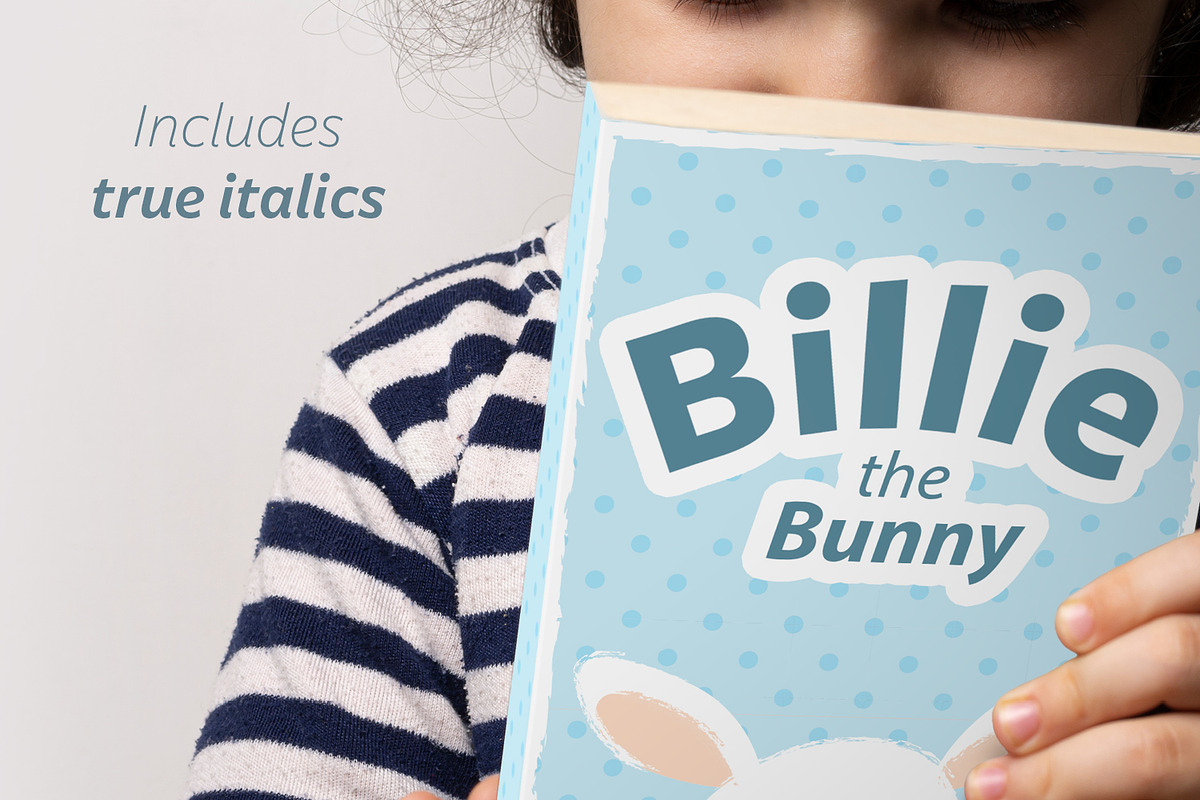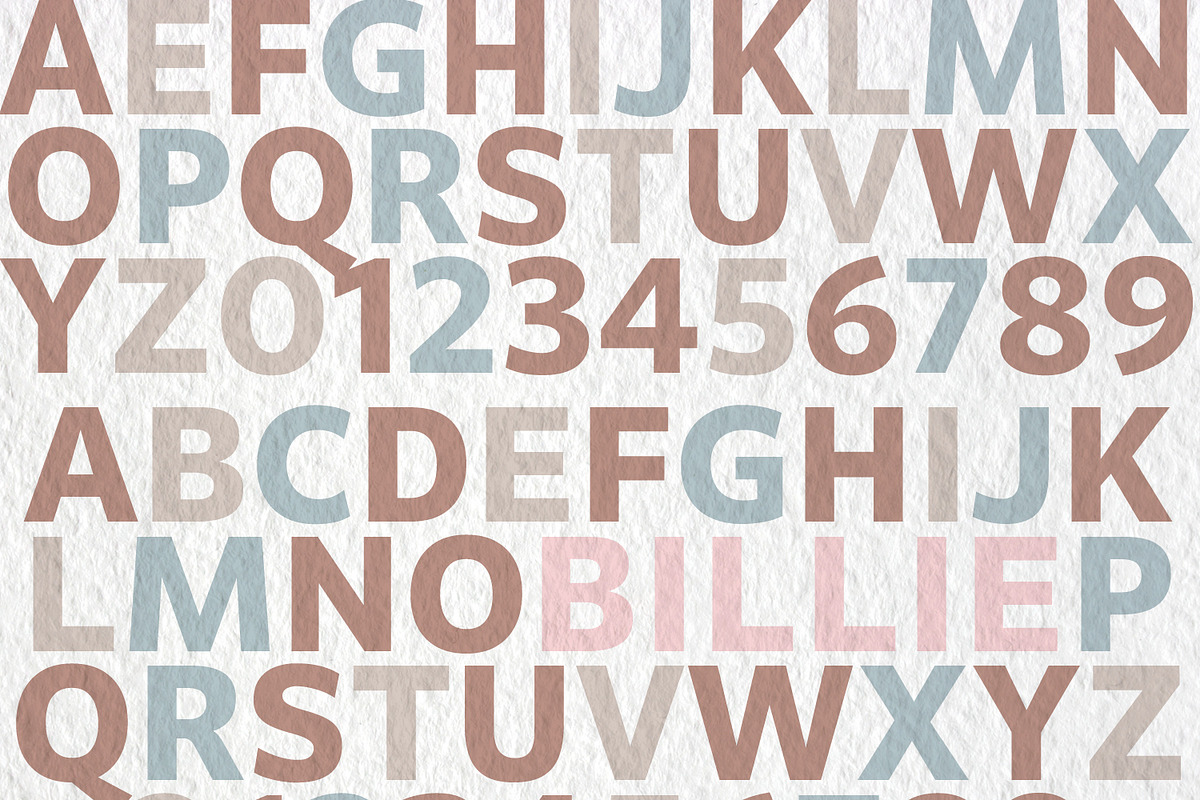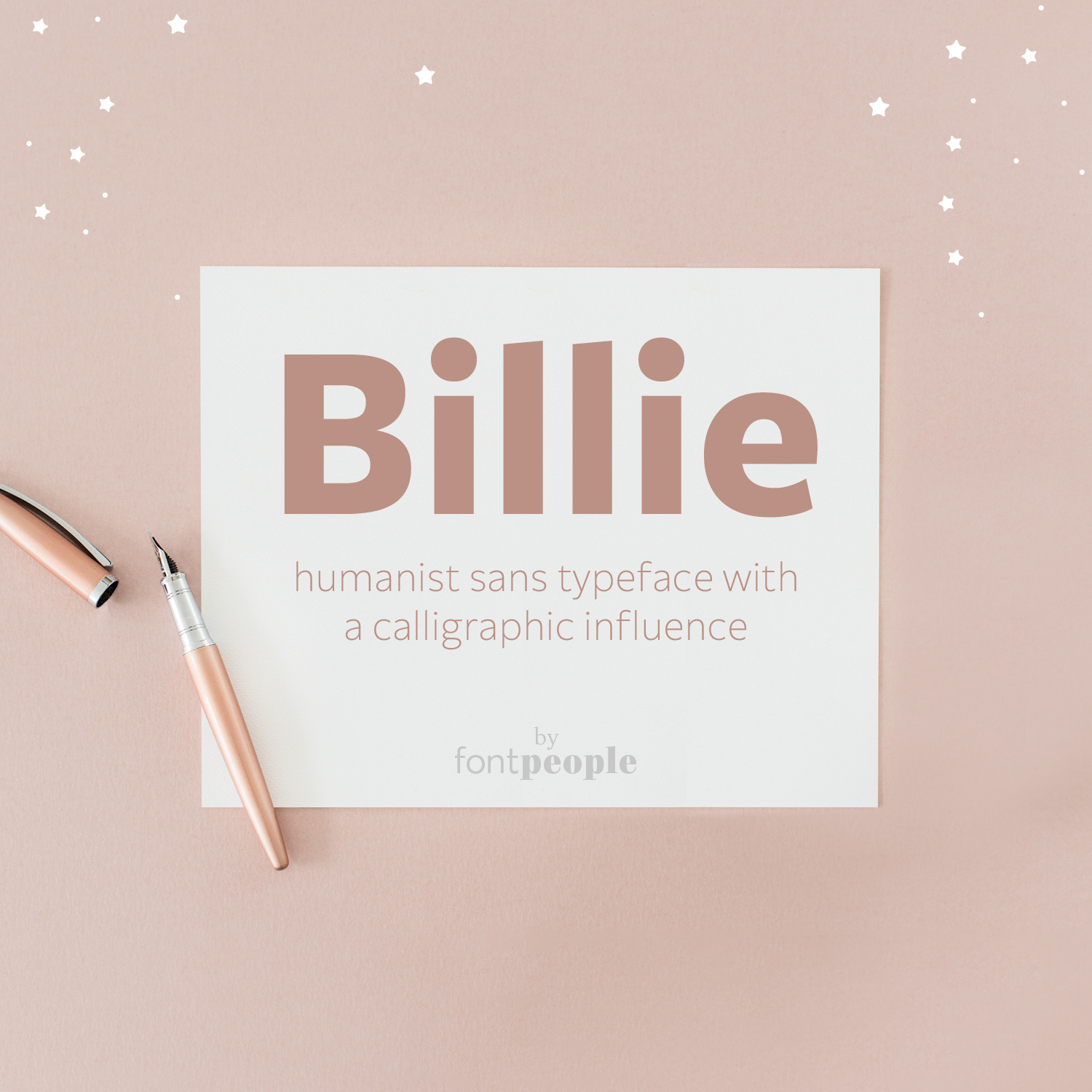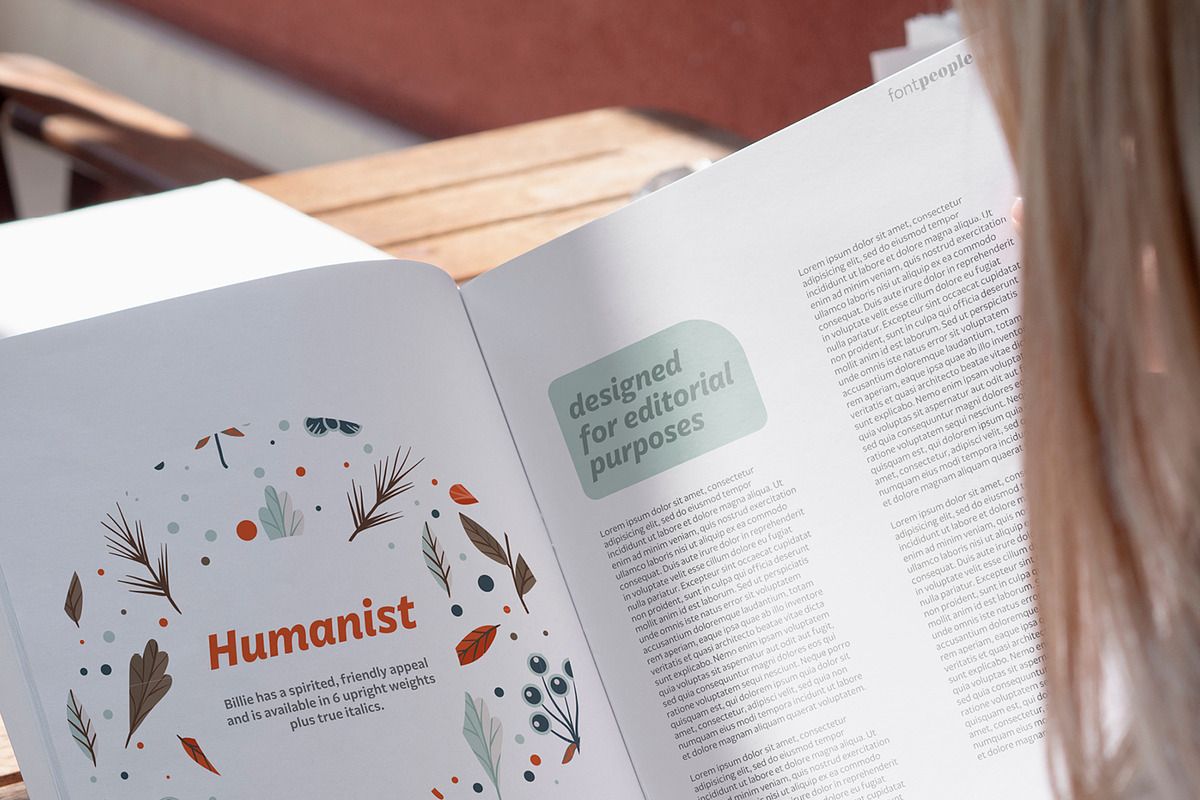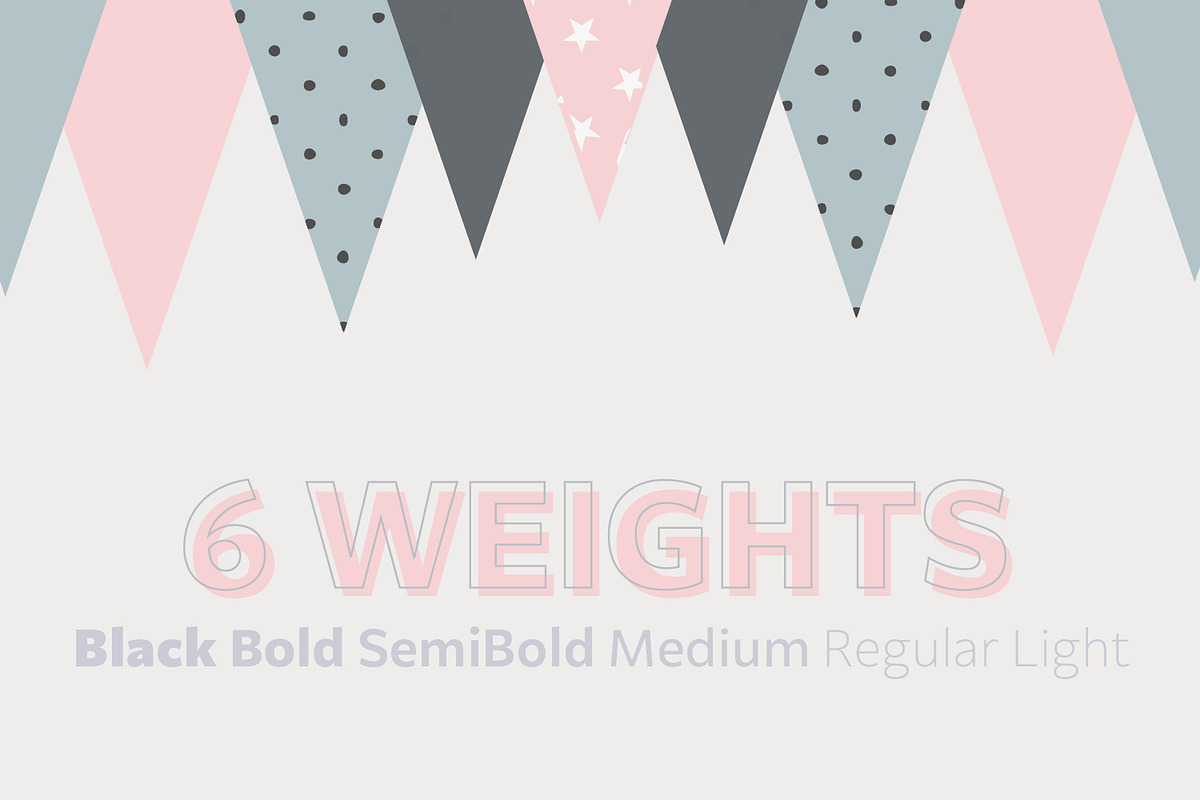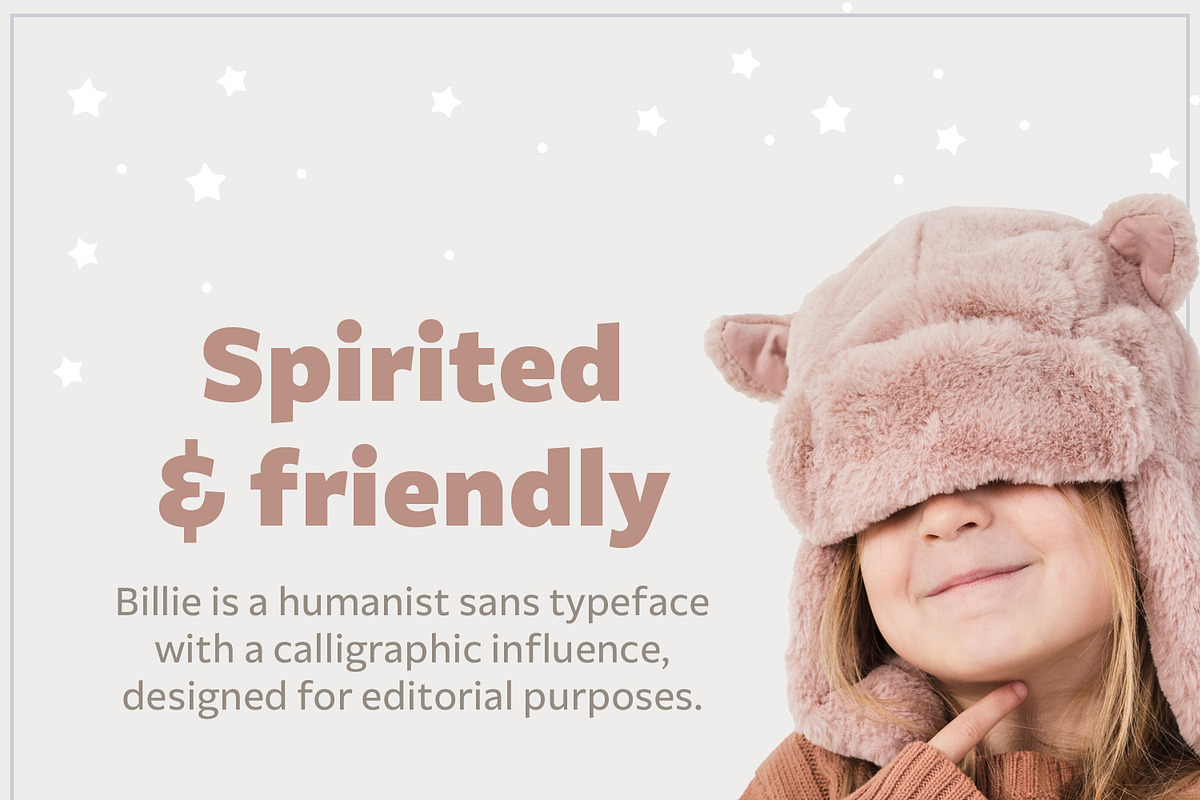
Billie font family by FontPeople
Billie is a humanist sans with a calligraphic influence designed for editorial purposes. It includes 6 weights in upright and true italics. The font family is loaded with different styles of numerals that can be activated through opentype features to enhances performance in text settings. This type family is spirited and has a friendly appeal. The typefamily is also available as two variable fonts.